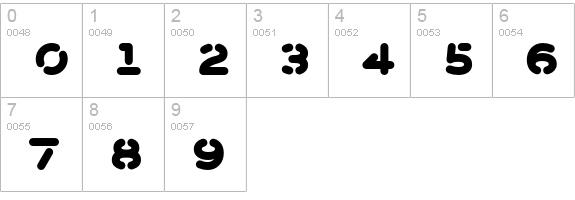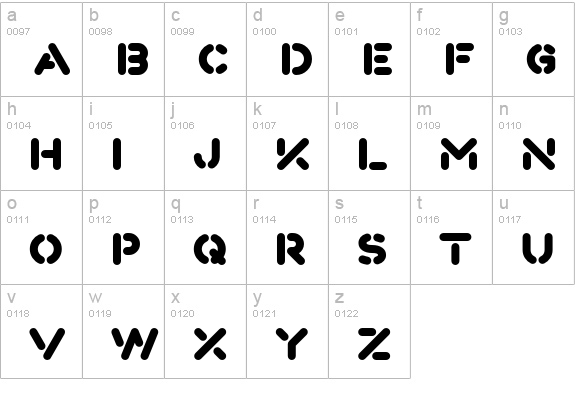
Fun City Level 3 Stencil font is a playful and modern typeface that will add a touch of fun and creativity to your projects. With its bold and distinctive stencil design, this font is perfect for making a statement on posters, logos, or any other design that needs a unique touch. The Fun City Level 3 Stencil font is versatile and can be used for a variety of design purposes, from branding to signage. Its clean lines and attention-grabbing style make it a standout choice for anyone looking to add a touch of whimsy to their work. Best of all, Fun City Level 3 Stencil font is available for free download at FontsMarket.com. So go ahead and unleash your creativity with this fun and stylish typeface!